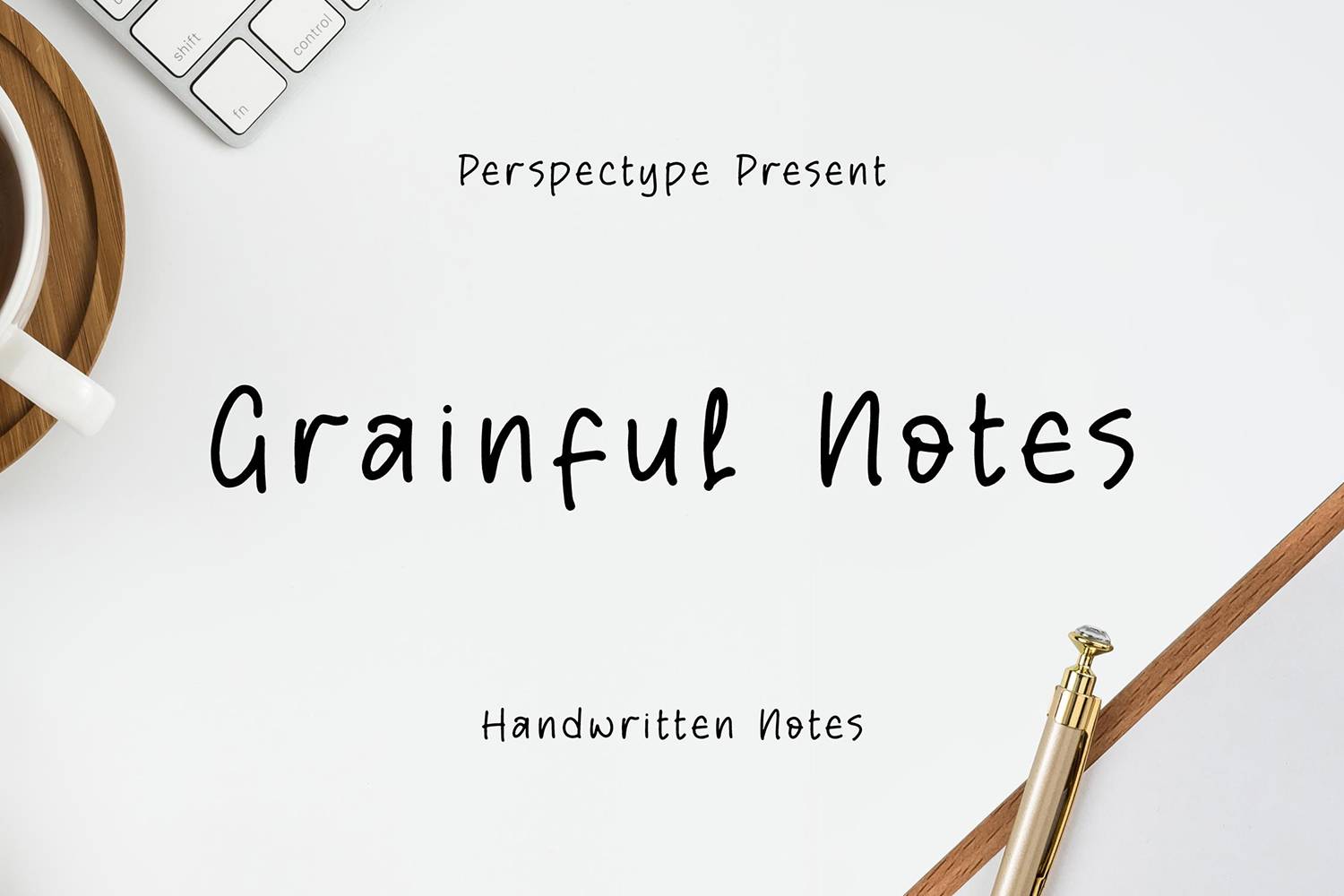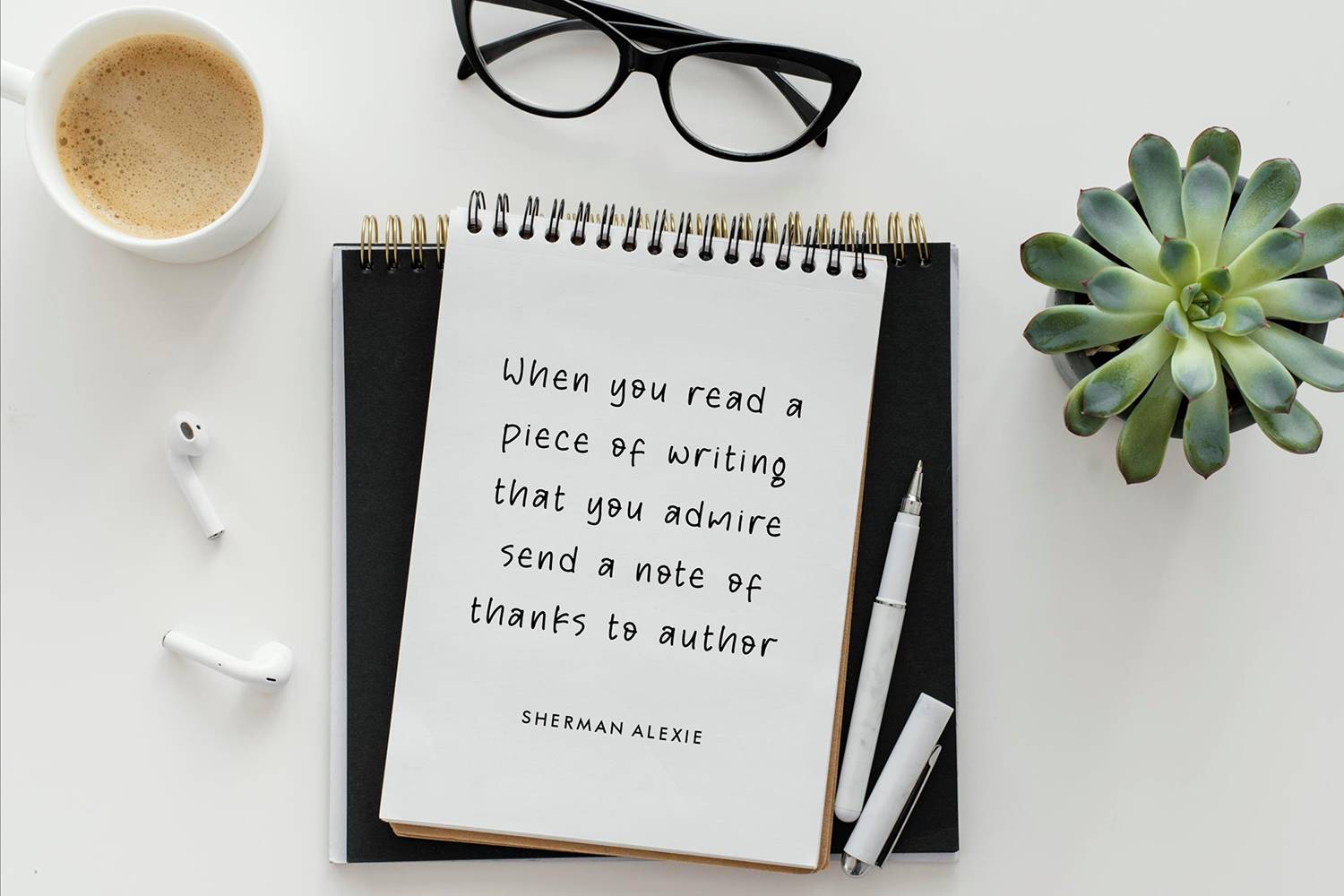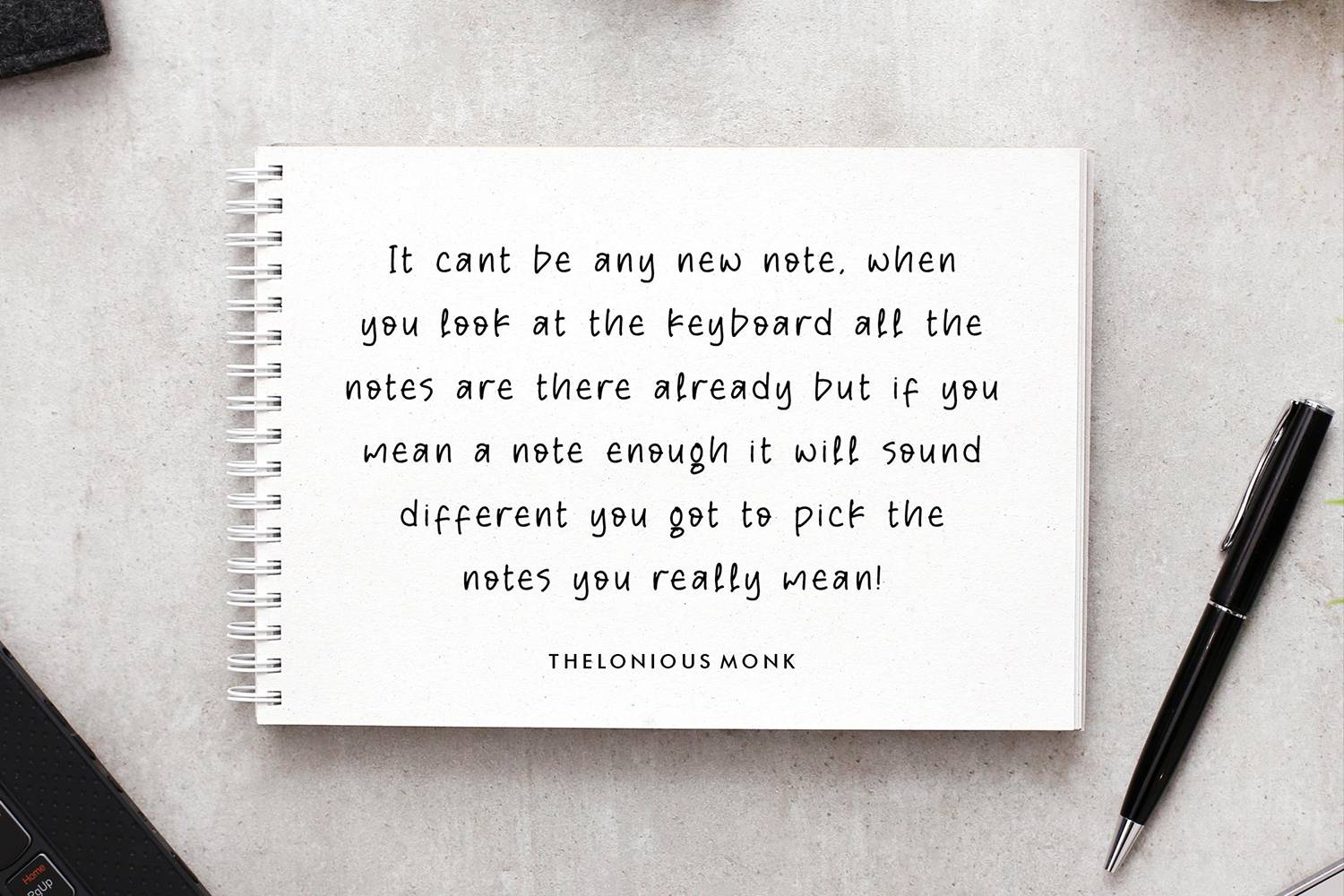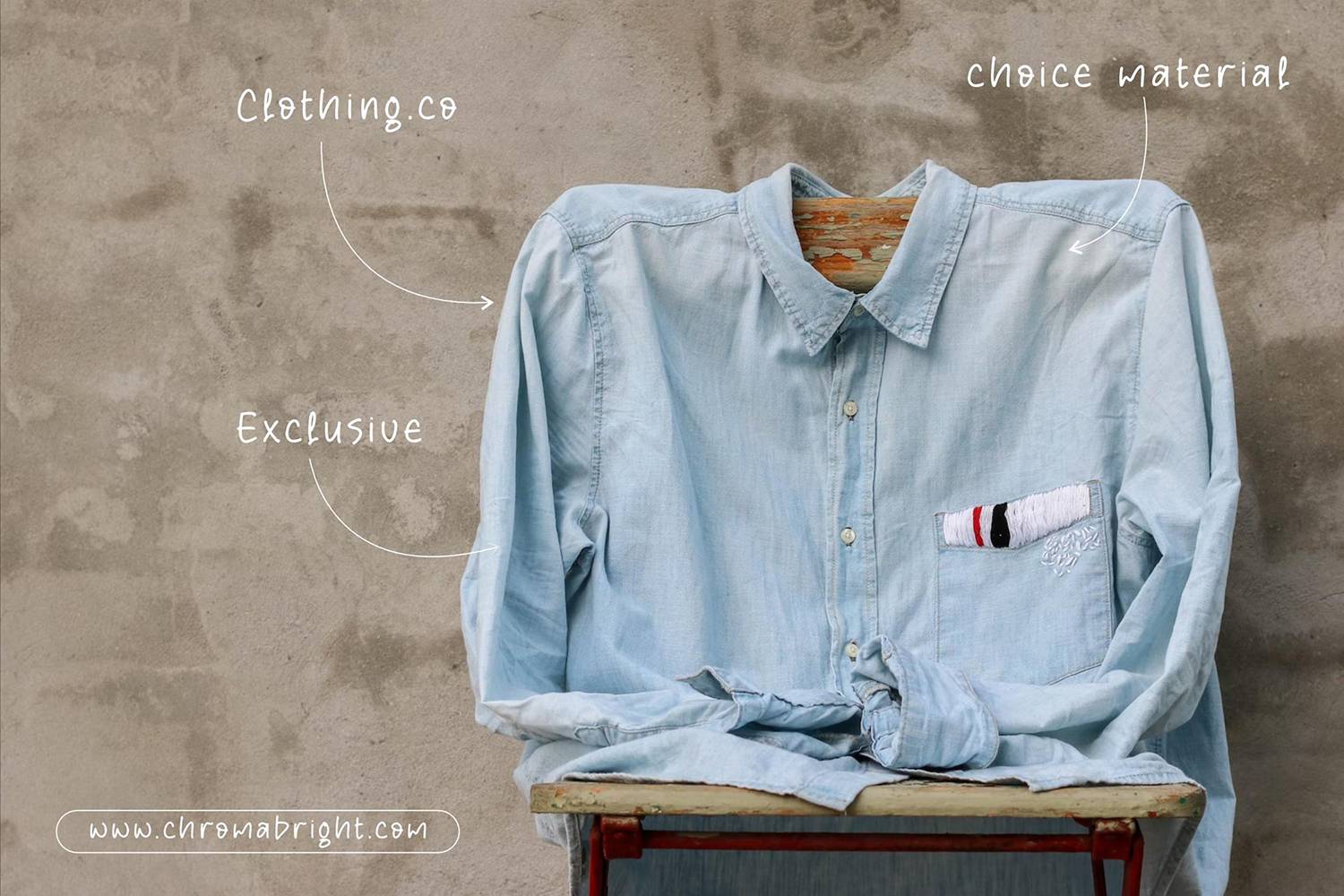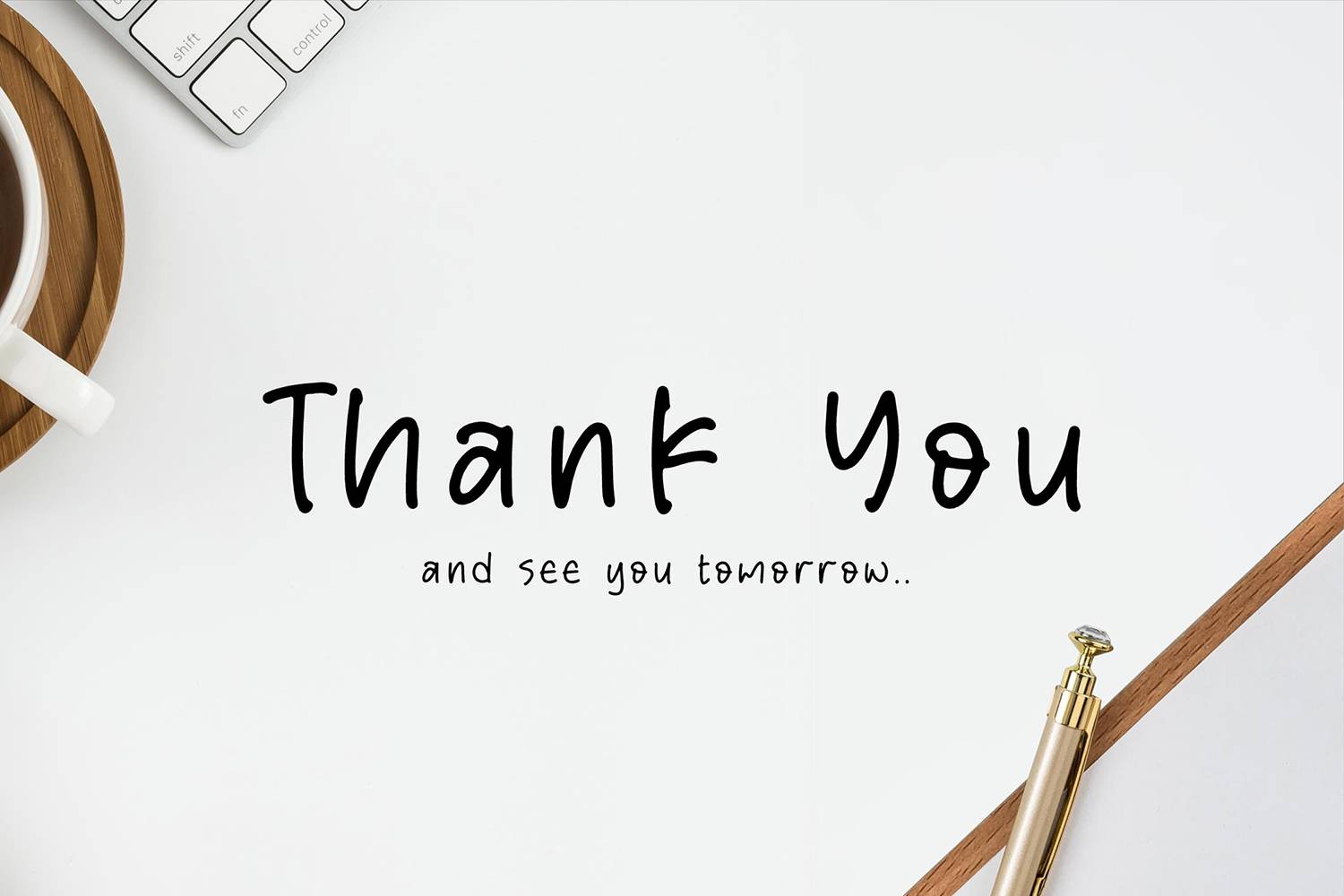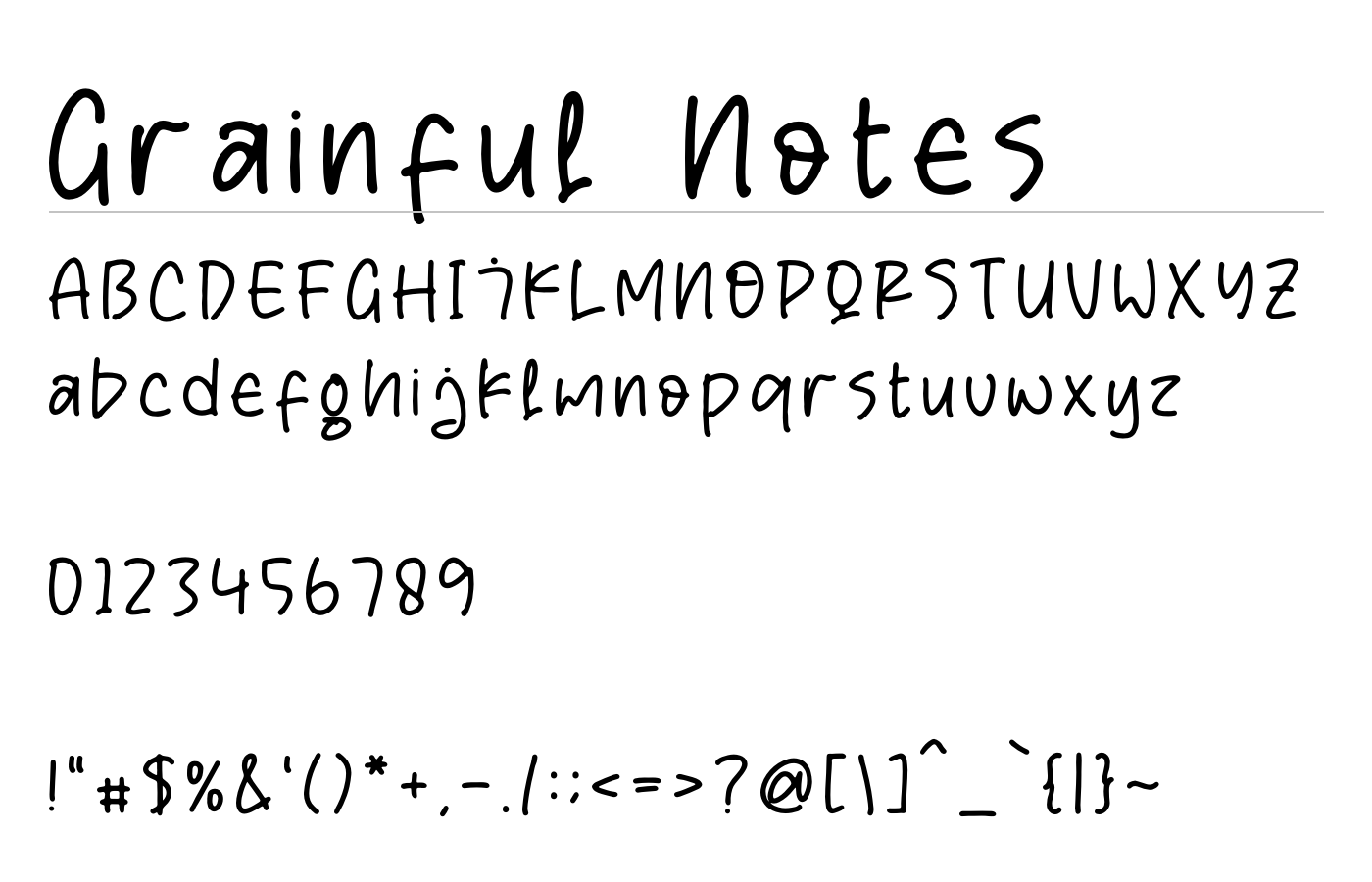
Grainful Notes is a casual, handwritten sans serif font with a playful and informal vibe, featuring irregular, slightly uneven strokes that mimic natural handwriting. Its light weight and moderate x-height create an airy, approachable feel, making it ideal for personal projects, creative branding, or friendly web content where a warm, human touch is desired. This font works well in headlines, invitations, and any design aiming to convey authenticity and friendliness.